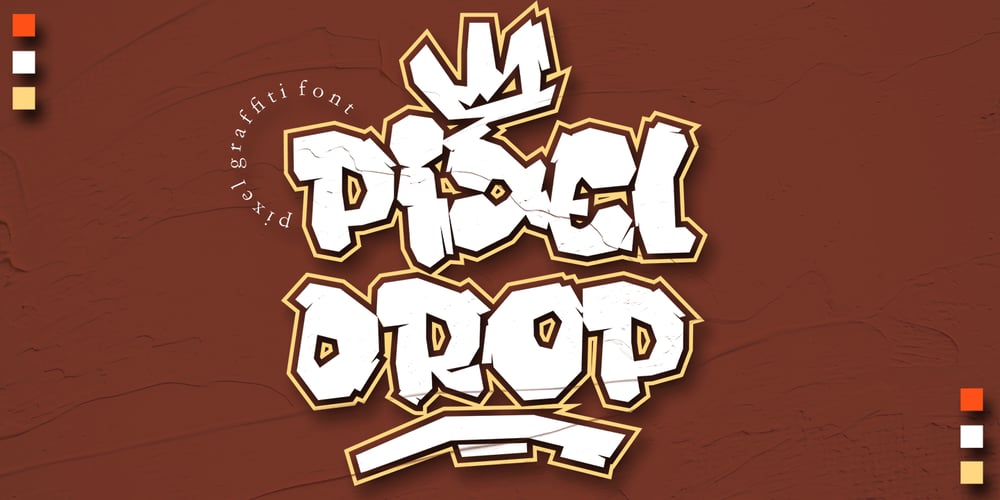
Pixeldrop Font Family was designed by Sipanji and published by Sipanji21. Pixeldrop contains 1 styles and family package options. Pixeldrop is a spectacular decorative font with a graffiti style and some pixel looks. It will elevate a wide range of design projects to the highest level, be it branding, headings, wedding designs, invitations, signatures, logotype, wall art illustration, apparel, labels, and much more!